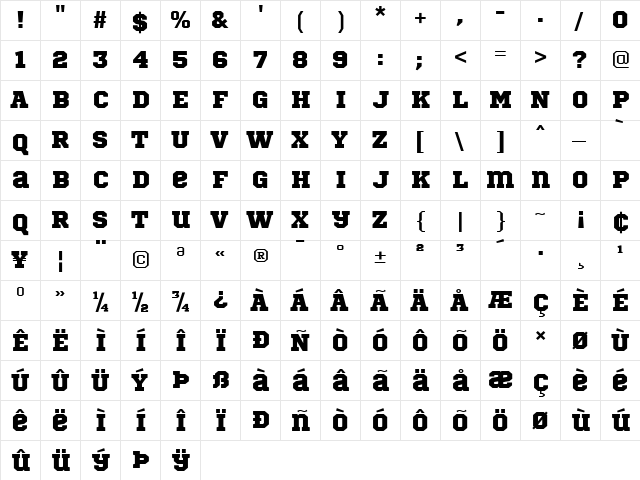
Sports World Regular
| Foundry | Sergiy S. Tkachenko |
| Designer | Sergiy S. Tkachenko |
Design Context for Sports World Typeface
Sports World brings high-energy athletic personality to the page — its confident, muscular forms are built for impact.
A natural choice for gym brands, fantasy sports, jersey lettering, and action-driven headlines.
Font Pairing: Use alongside a condensed or geometric sans for supporting copy — keep the pairing bold, functional, and free of ornament.
Pro Tip: Use Sports World in all-caps headlines where its athletic energy can fully express itself. Pair with a solid, simple sans for supporting text.